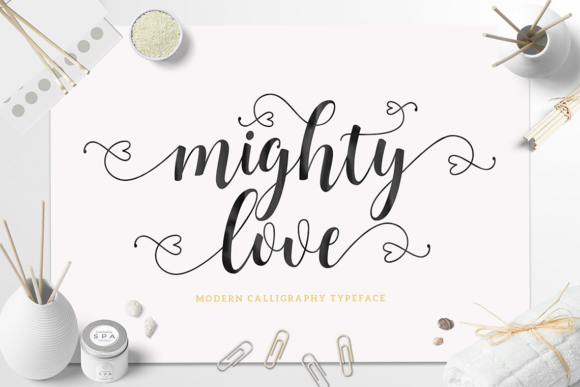
Journey into the realm of typographic elegance with Mighty Love, a script font crafted with love and passion. Let your designs dance with the rhythm of this enchanting font, its strokes flowing like a gentle stream, its curves caressing your words with grace. Mighty Love is a symphony of aesthetics, a font that elevates your creations to the realm of art.
Whether you're designing captivating logos, heartfelt invitations, or mesmerizing social media posts, Mighty Love becomes your trusted companion, adding a touch of magic to every letter, every word, every design. Its varying baseline and smooth lines mimic the natural flow of handwriting, capturing the essence of human connection and authenticity.
Immerse yourself in the world of Mighty Love, where glyphs and swashes intertwine, creating a tapestry of typographic beauty. Accessing these ornaments is a breeze, thanks to the PUA encoding, allowing you to unleash your creativity without limits. Explore the depths of Mighty Love's character set, discovering stunning alternates that add depth and dimension to your designs.
With Mighty Love, the possibilities are boundless. Craft elegant wedding invitations that evoke romance and timeless love, design captivating posters that demand attention, or create logos that exude sophistication and style. Unleash your imagination and transform your designs into masterpieces, using Mighty Love as your artistic muse.
Don't settle for ordinary fonts; embrace the extraordinary with Mighty Love. Let your designs bloom with elegance, captivate audiences with your creativity, and leave an unforgettable impression. Mighty Love is more than just a font; it's an experience that transforms your digital creations into works of art.